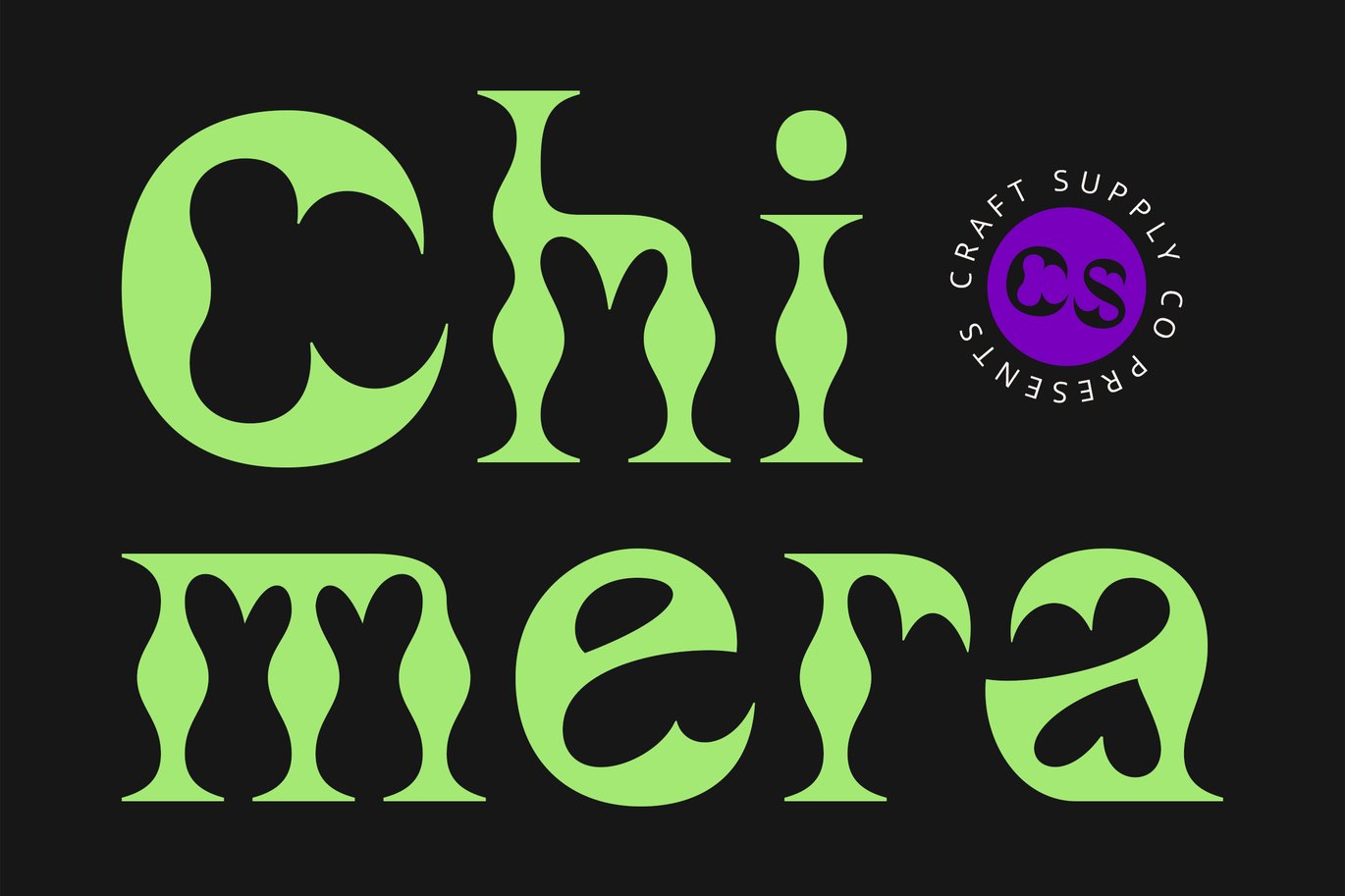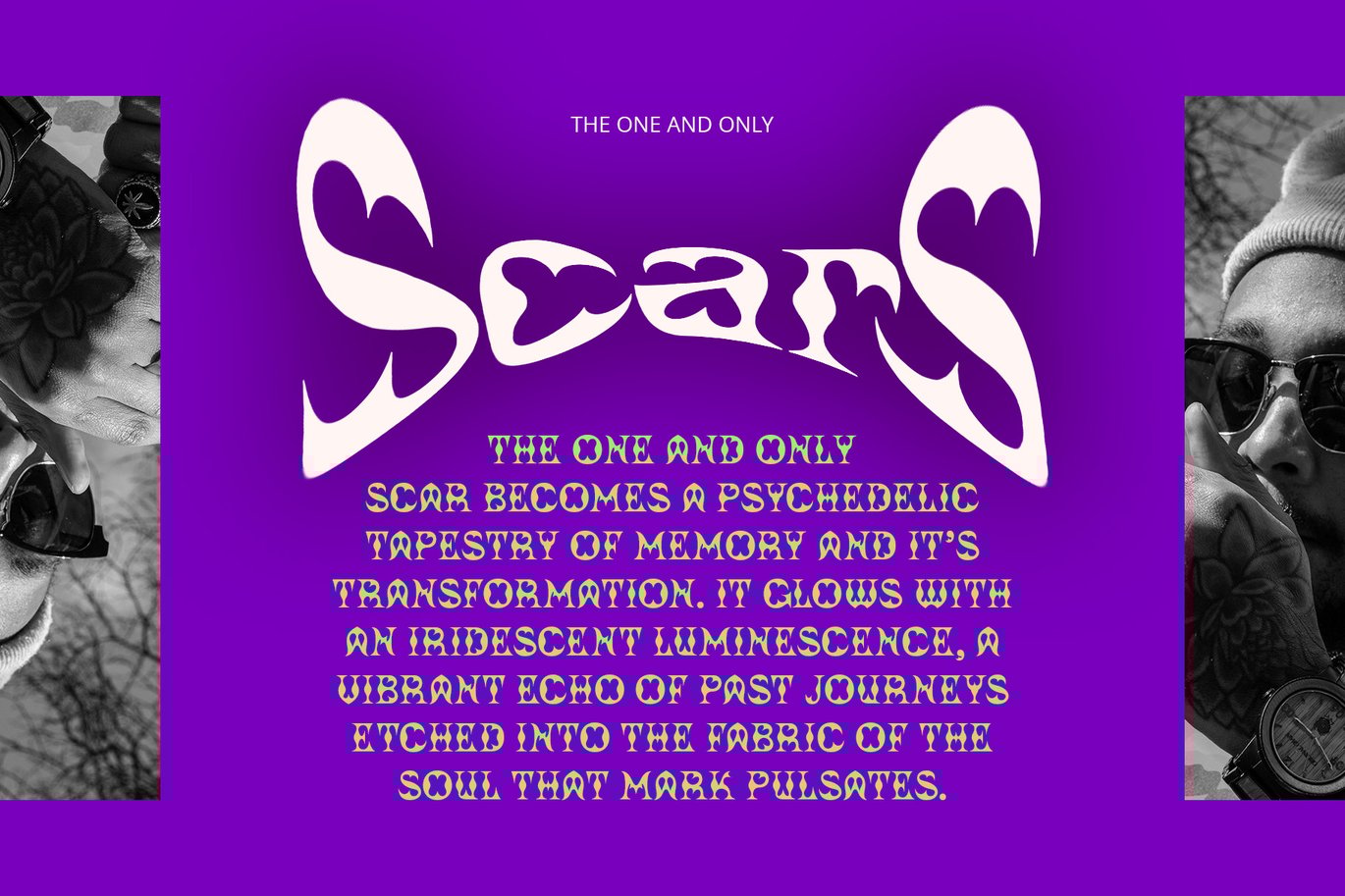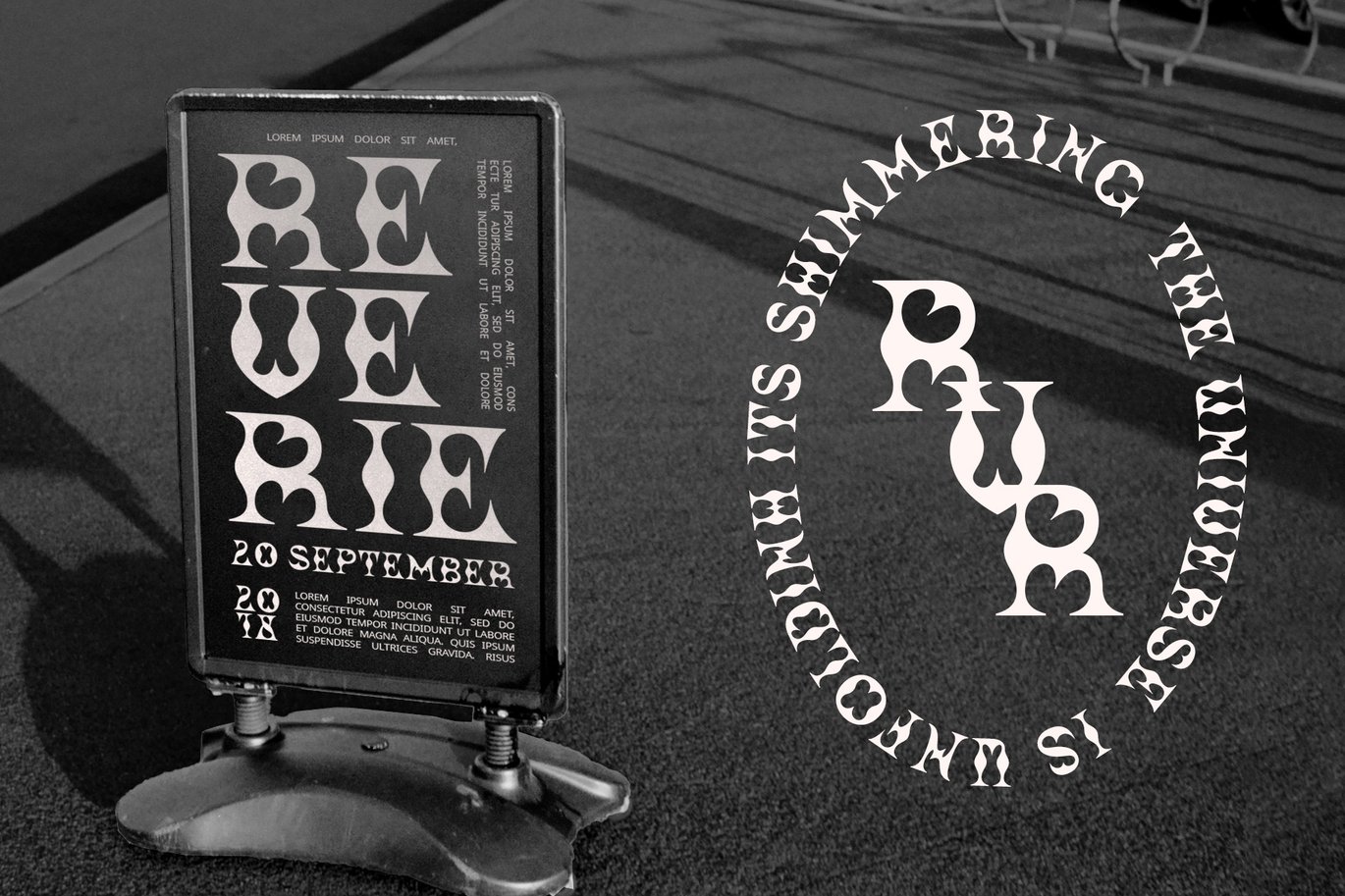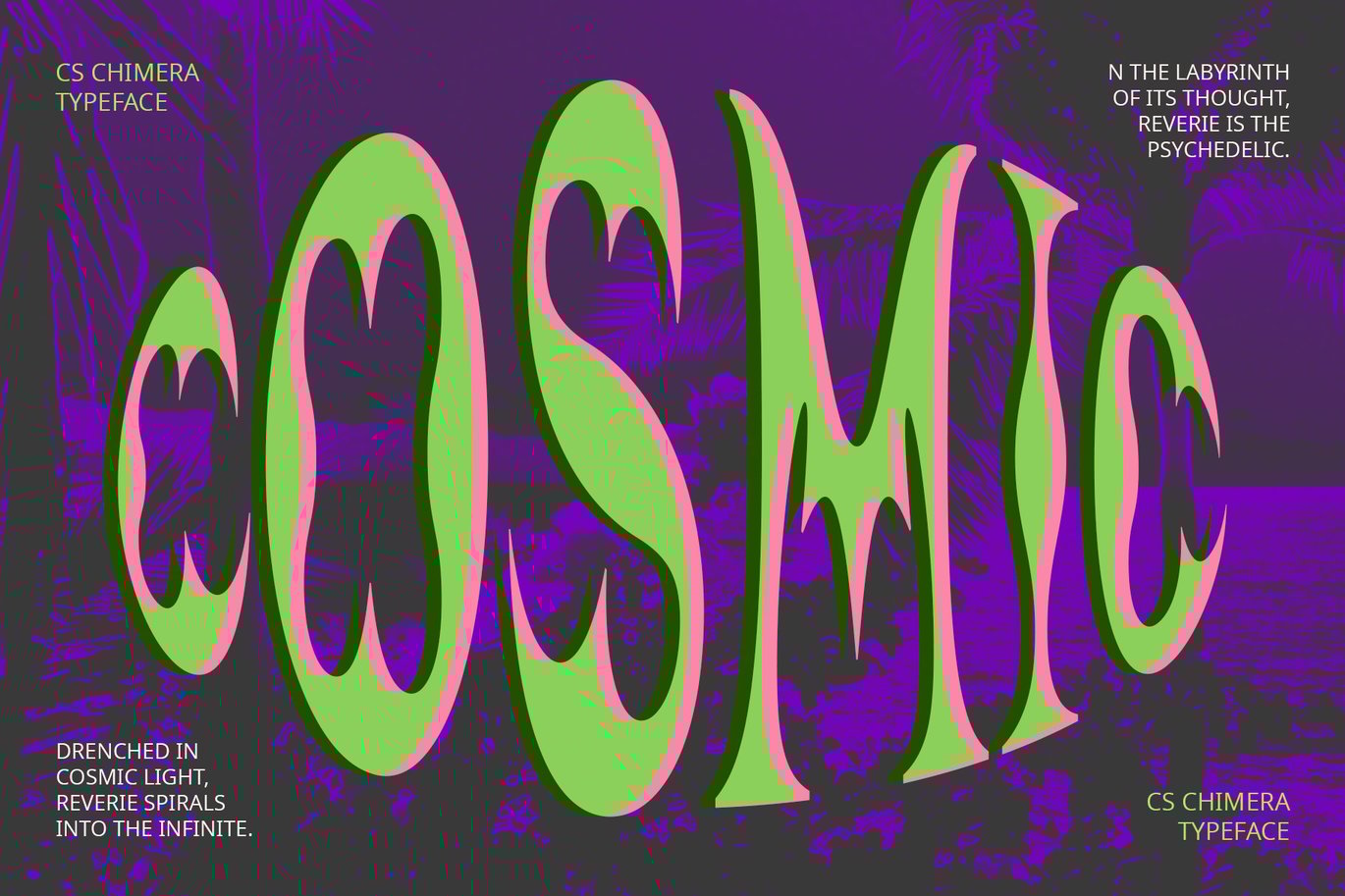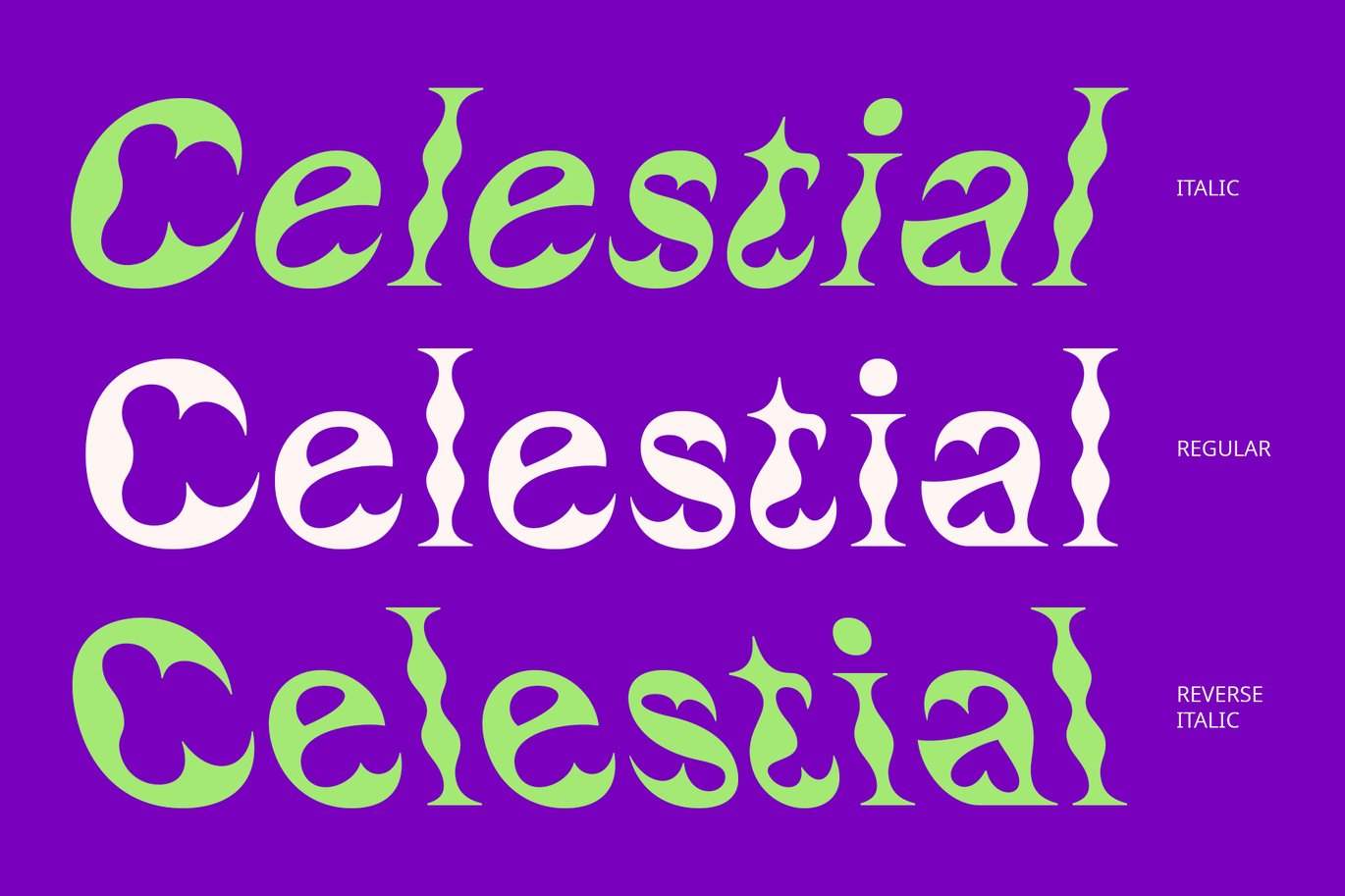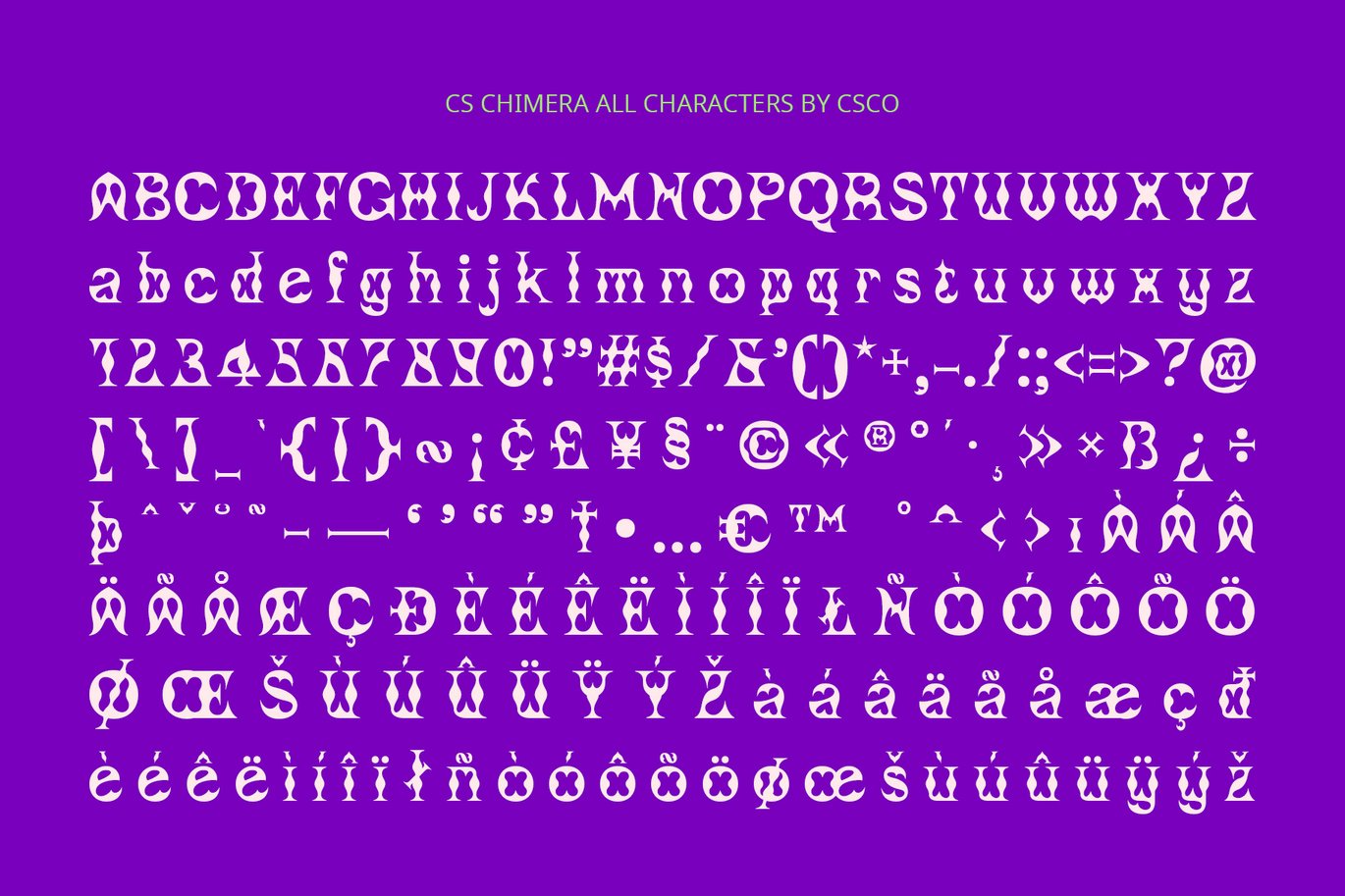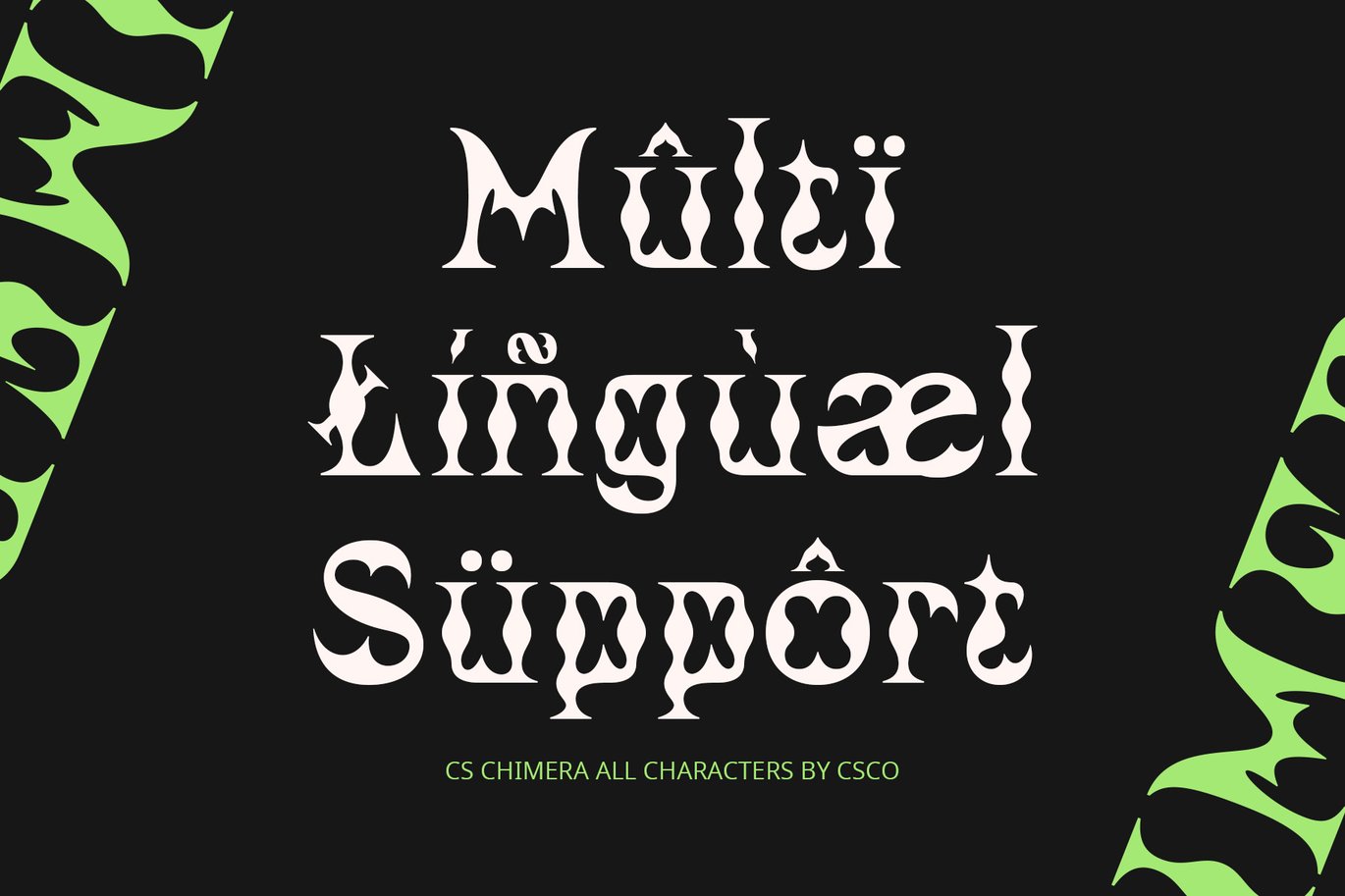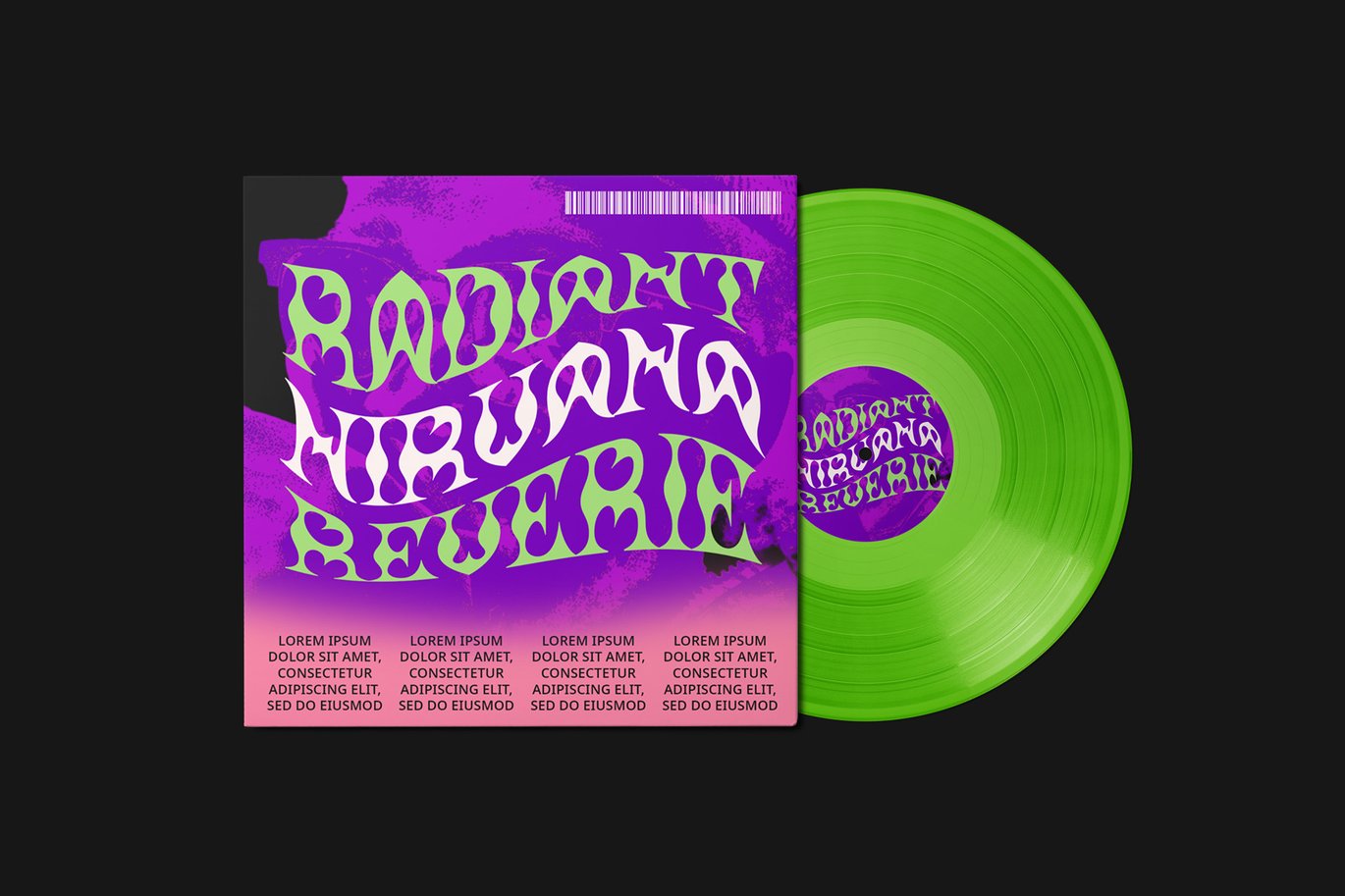
Chimera – Psychedelic Font
CS Chimera – Psychedelic Font: Bold Creativity with a Funky Edge
Display with Psychedelic and Funky Elements
CS Chimera is a display font that fuses unique psychedelic and funky shapes to create a visually captivating design. Inspired by the vibrant visual styles of the 1960s and 1970s, this font features letters that are curved, swirling, and vividly distorted, offering a stunning and dynamic effect. The psychedelic influence brings a sense of boldness and creativity, making each character a visual statement.
Funky Design for a Playful Touch
Adding a layer of fun and cheerfulness, CS Chimera incorporates unconventional letterforms and playful designs. The font often employs bright colors and quirky patterns, resulting in an engaging and energetic appearance. Its funky elements enhance its overall creativity, making it a perfect choice for projects that need a lively and distinctive style.
Ideal for Music and Creative Projects
CS Chimera is perfect for any design project that aims to stand out and make a statement. Whether you’re designing music posters, creative event materials, or other vibrant promotional content, this font provides a unique and daring look. Its combination of psychedelic and funky features ensures that your designs will be both memorable and visually striking, embodying a bold, energetic style.